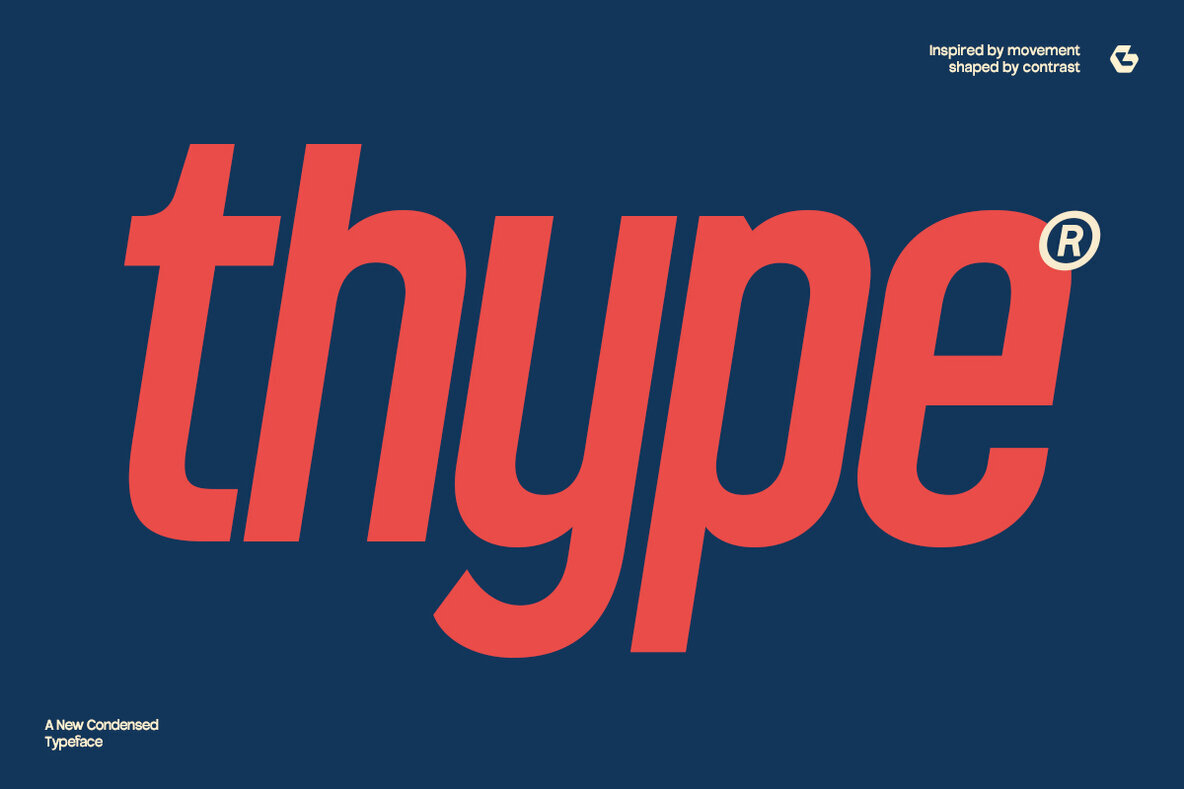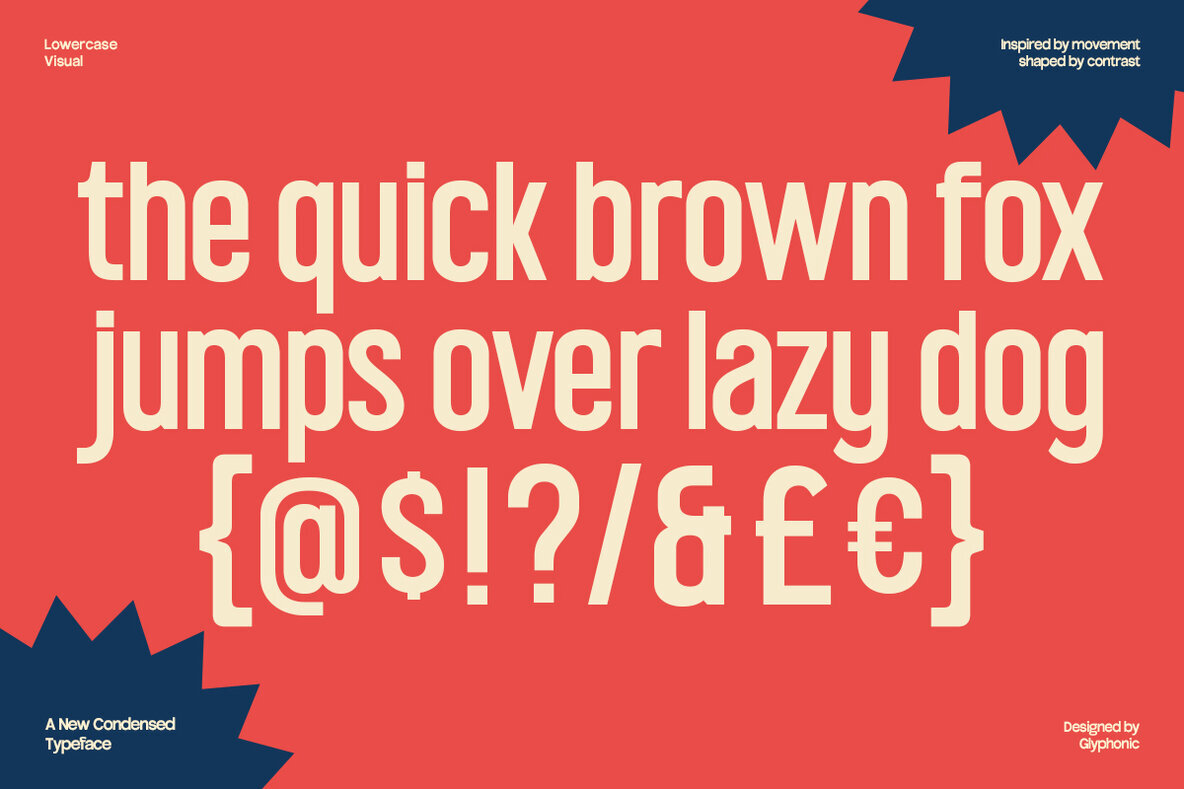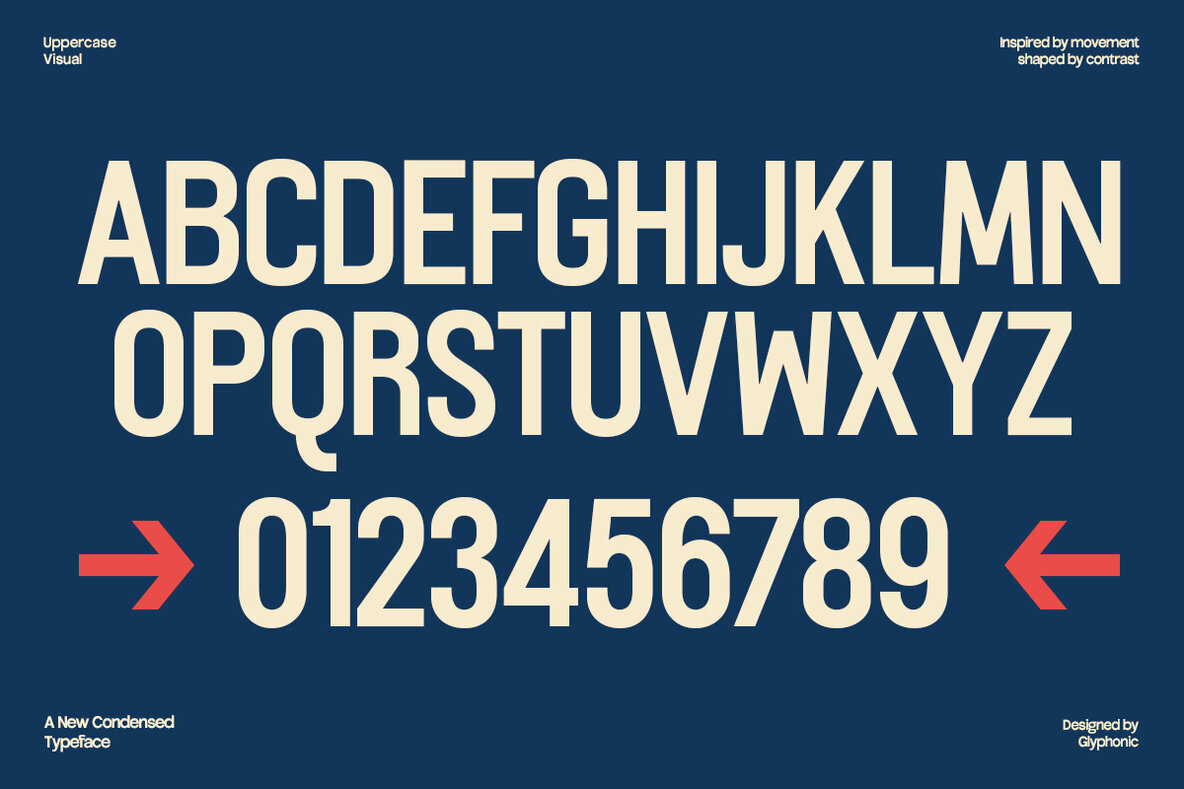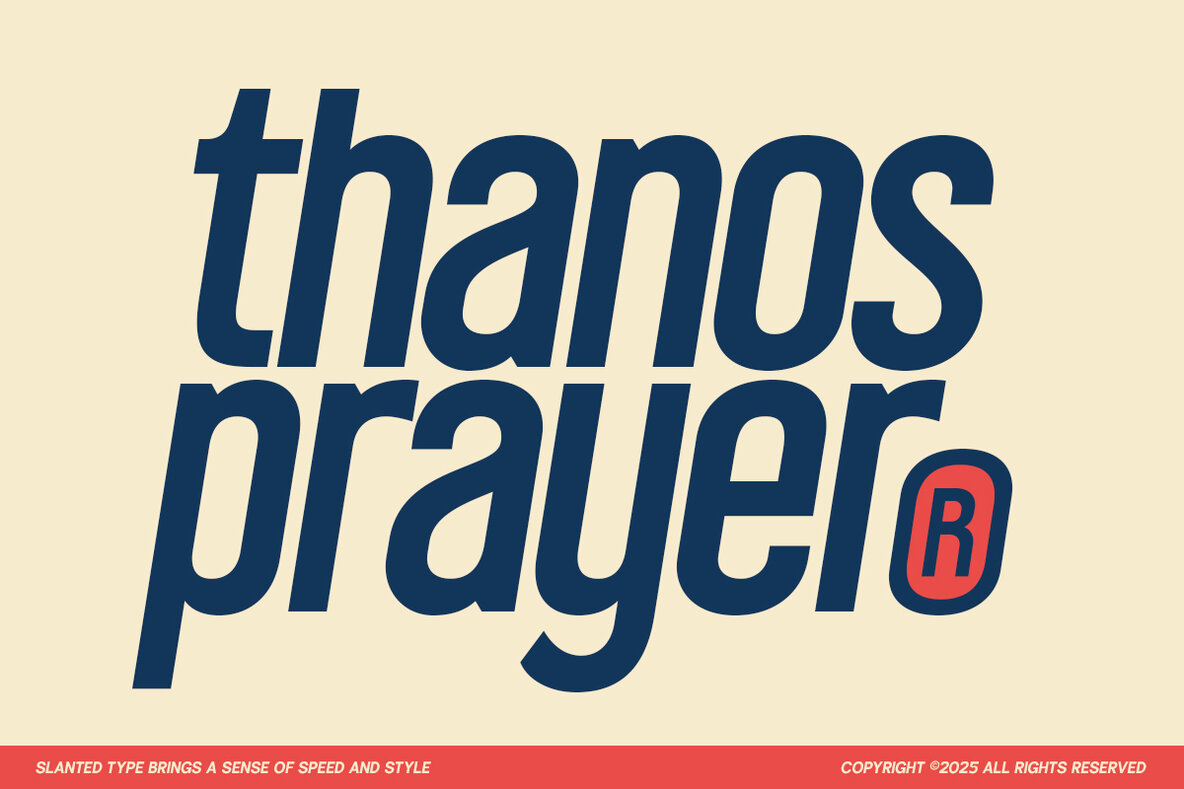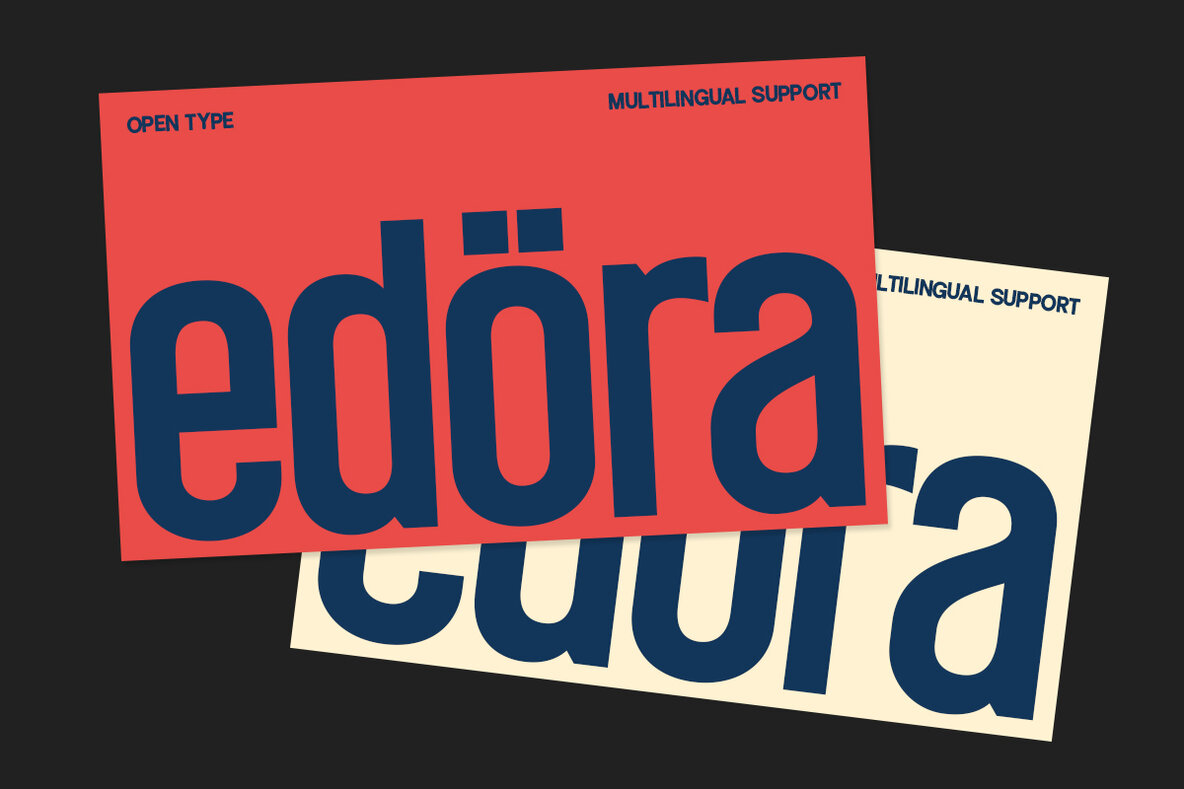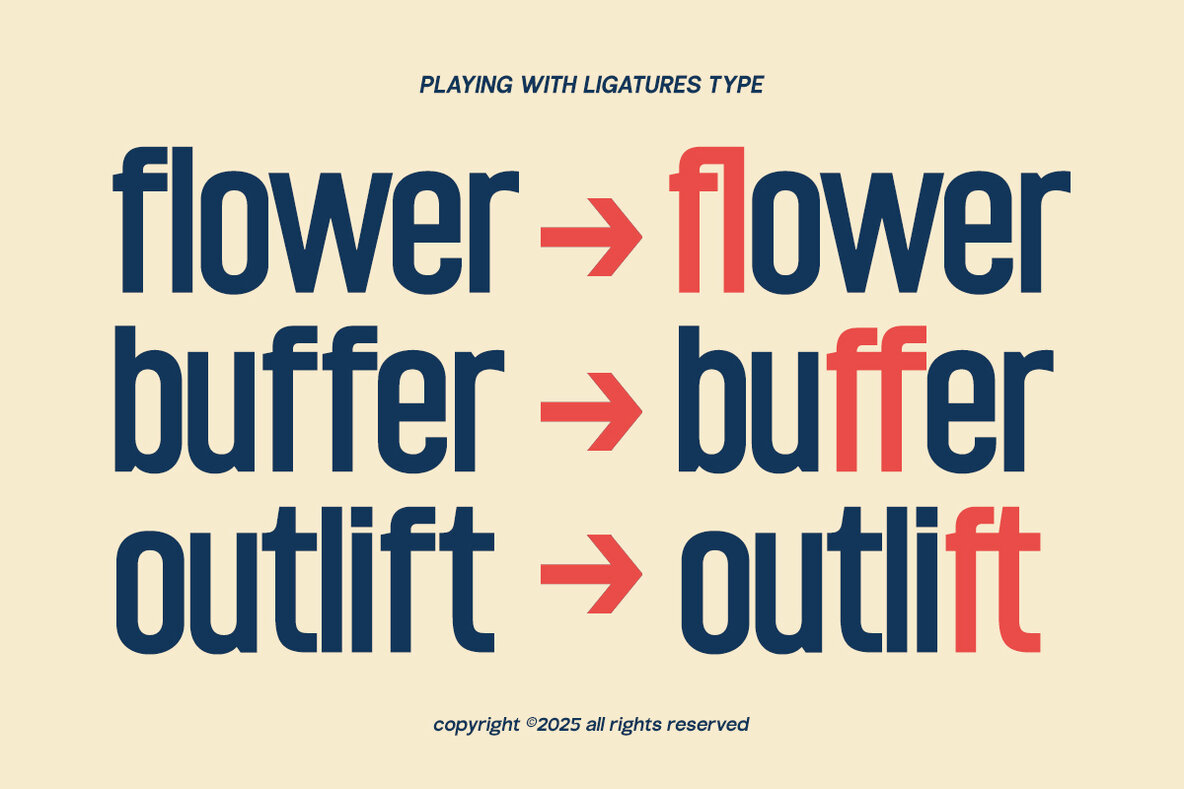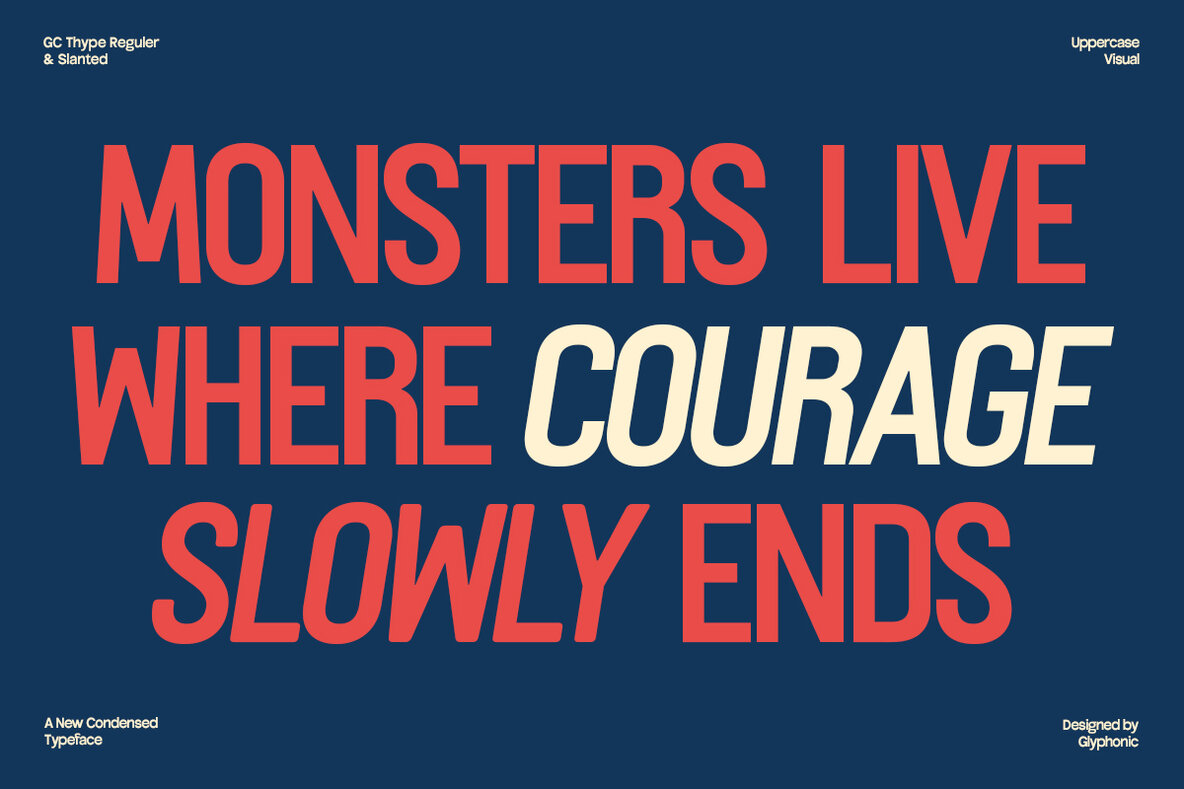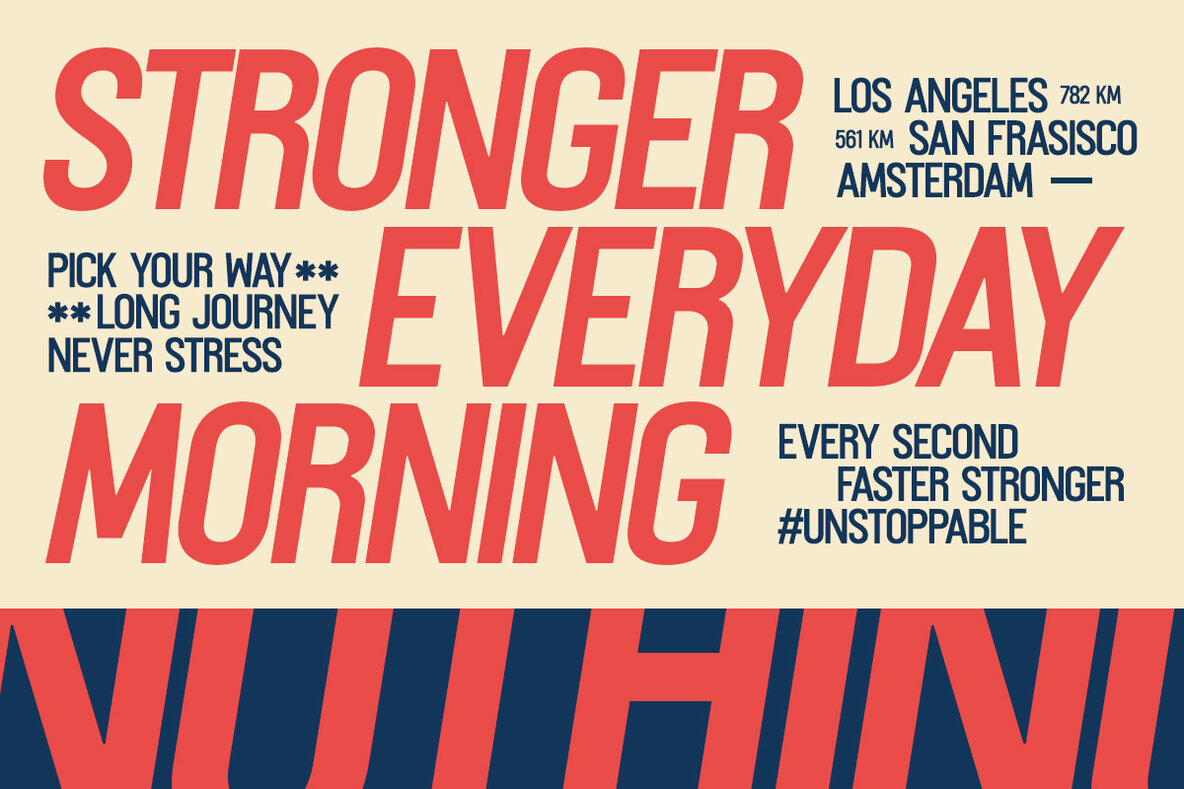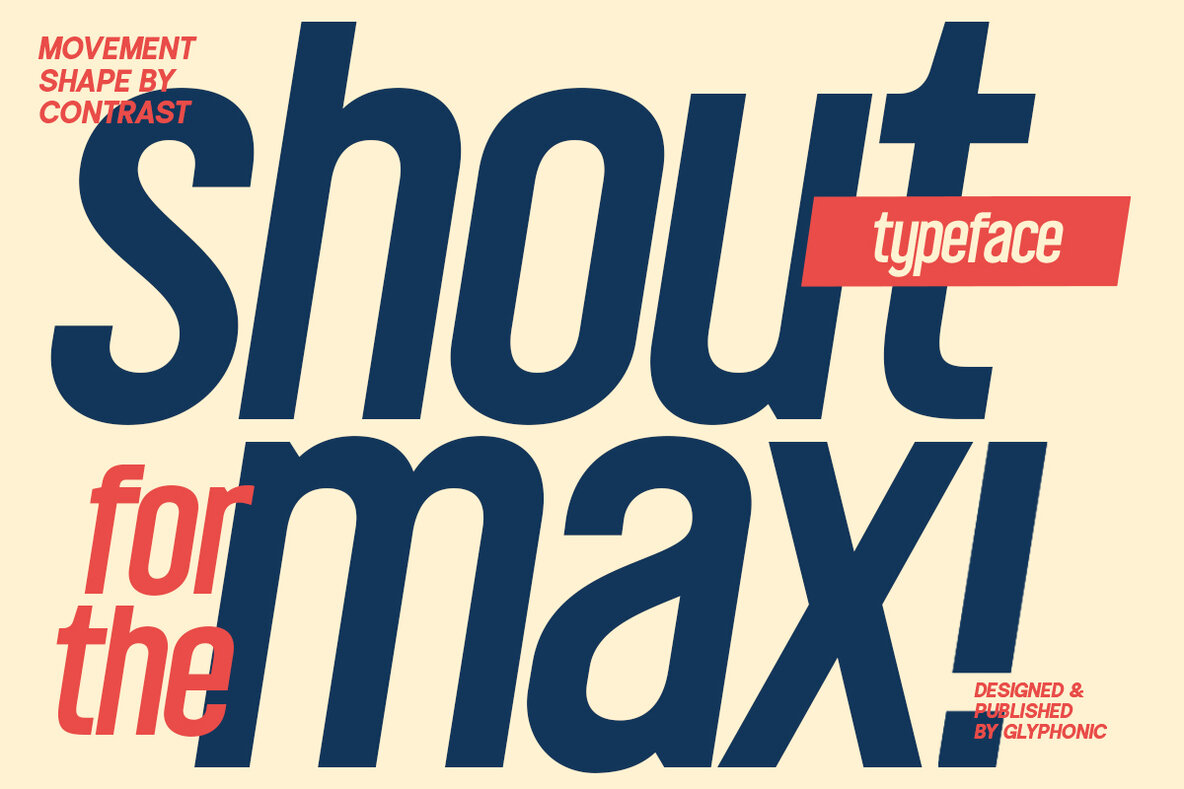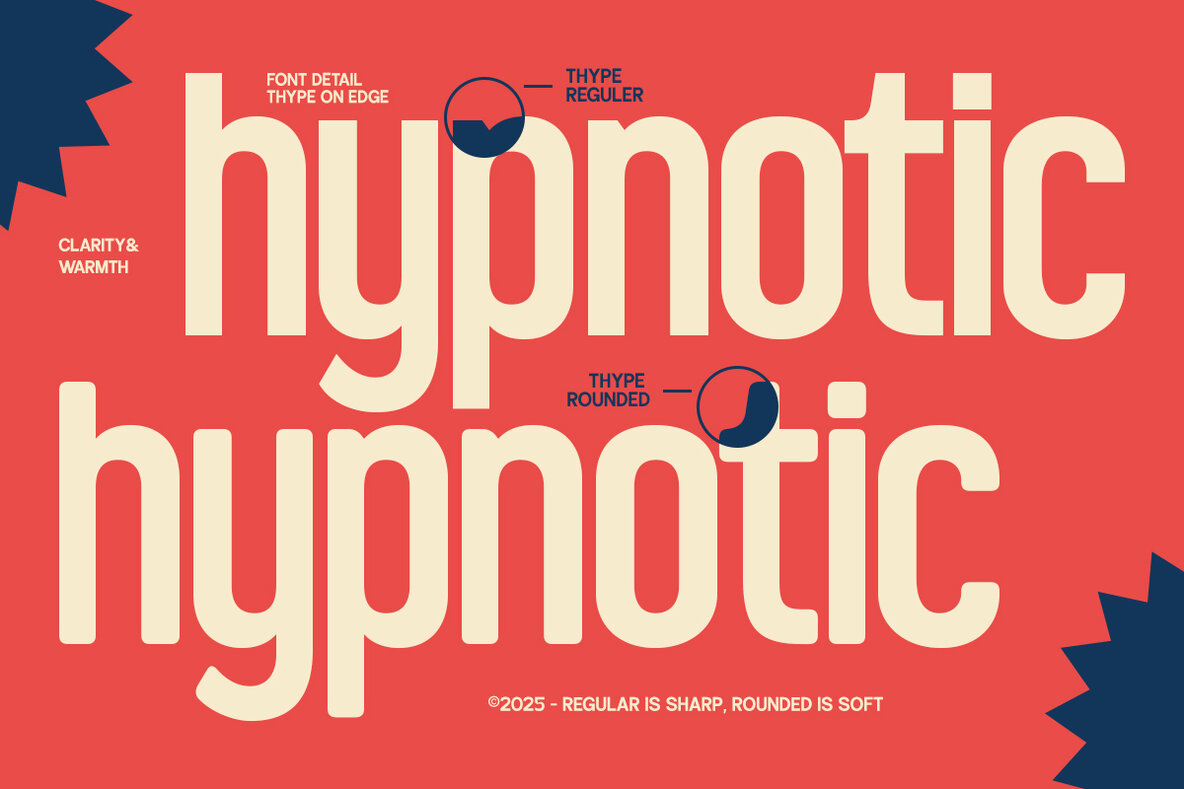
GC Thype Font
GC Thype is a condensed sans-serif typeface that fuses modern minimalism with bold visual appeal. Ideal for creating striking headlines, effective branding, and compelling posters, logos, as well as editorial layouts, it is designed to make a lasting impression. The font's tight spacing and tall letterforms, coupled with sharp terminals and clean geometric lines, imbue your designs with personality and a contemporary edge. From fashion and streetwear to technology and creative visuals, GC Thype offers a distinctive style and high-impact readability. Enhance your design's boldness and elegance with GC Thype.GC Thype: Condensed Sans-Serif for Impactful Design